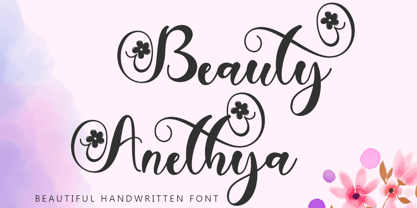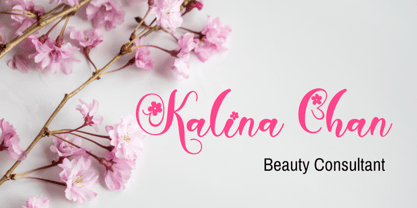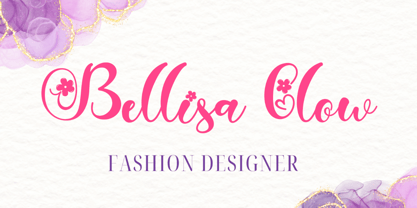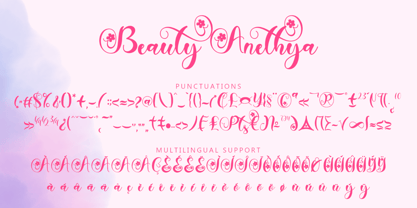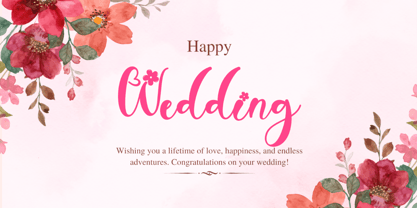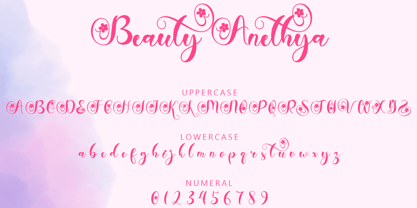
Beauty Anethya
by Yoga Letter
The Beauty Anethya Font Family was designed by Isroni Yoga Prasetya and published by Yoga Letter. Beauty Anethya contains 1 styles. More about this family
"Beauty Anethya" is a beautiful and elegant handwritten font. This font is equipped with uppercase, lowercase, numerals, punctuations and multilingual support. It is very suitable for weddings, business branding, stickers, spring, summer, holidays, invitations, banners, mother's day and others.
Designers: Isroni Yoga Prasetya
Foundry: Yoga Letter
Beauty Anethya